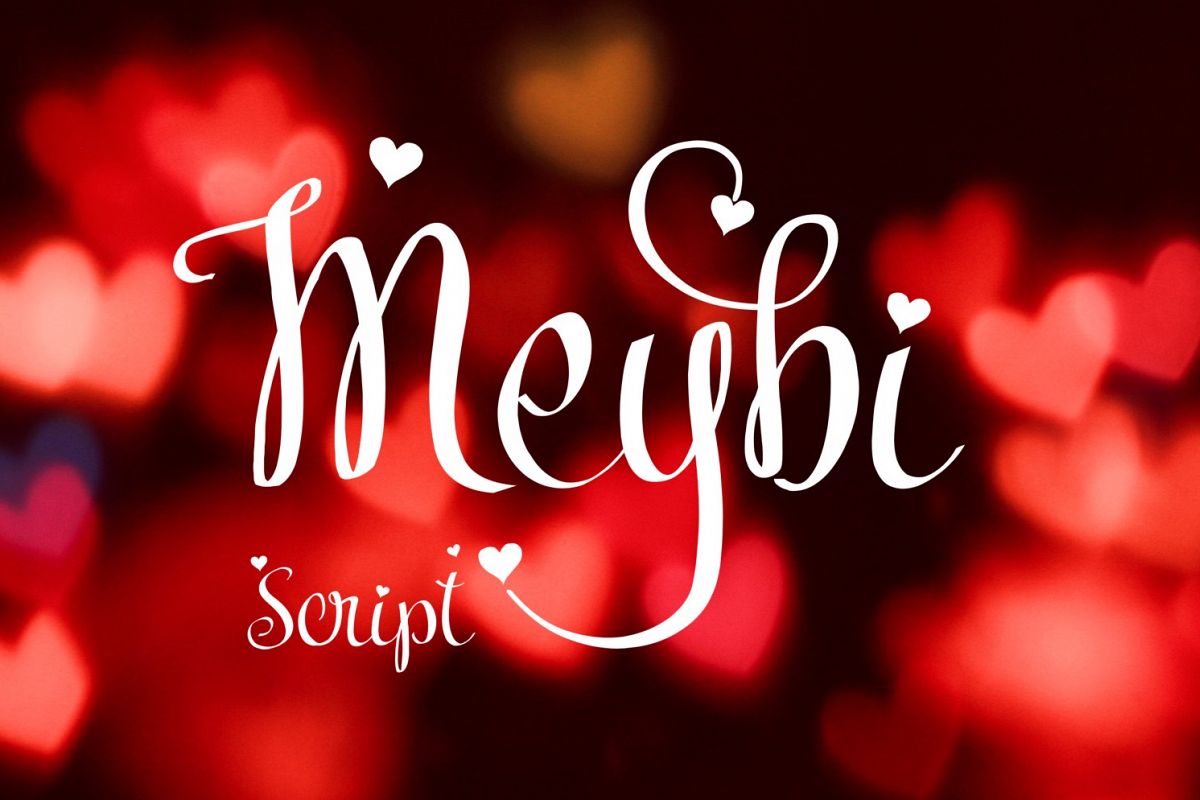
Meybi Font
Introducing Meybi calligraphy script font
Great for Valentine's cards or other stationeries and also perfect for many craft area such as stencils, engraving, laser cutting and more!